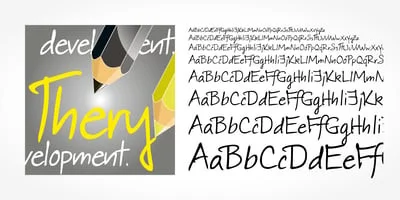
Thery Handwriting Font
Thery Handwriting Font is perfect for personal letter designs, handwritten quote graphics, journal covers, signature logos, boutique branding, artisan product labels, craft workshop materials, and authentic greeting cards. This charming typeface excels in handmade business branding, personalized stationery, memoir book covers, and intimate blog headers that require a genuine human touch.
What makes Thery Handwriting Font exciting is its authentic personal character that captures the warmth and intimacy of genuine handwritten communication. The font features natural letter variations, organic pen strokes, and realistic writing flow that creates the impression of actual handwriting. Its personal touch and human authenticity make every message feel individually crafted and heartfelt.
Thery Handwriting Font family includes various handwritten styles: Regular, Bold, Light, Casual, Formal, and Signature variations. Each style maintains the font's distinctive personal character while offering designers multiple options for creating authentic brand personalities and handcrafted typography that establishes genuine emotional connections with audiences.
Creative professionals choose Thery Handwriting Font for projects requiring personal authenticity and handmade appeal. The font's versatility makes it suitable for both commercial artisan brands and personal creative projects, ensuring genuine results across social media graphics, packaging designs, and personalized marketing materials.